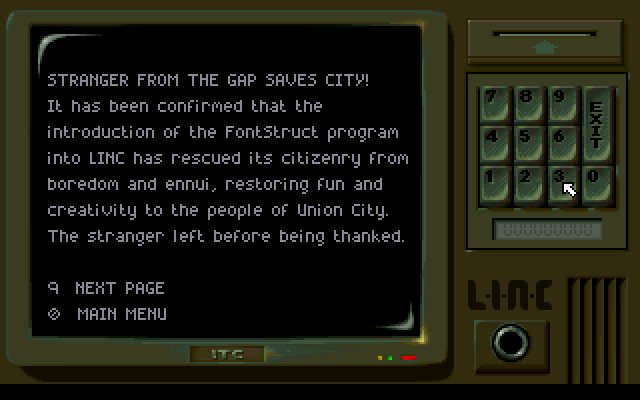
• Font used on the LINC terminal screens, inside LINC-Space, and for player-named saved games in the DOS version of Beneath A Steel Sky, (C) 1994 Revolution Software.
Oddities found within this font's design:
• The j is missing its tittle (corrected here)
• The stem of the k is 1 pixel shy of the full cap height (corrected here)
• There is an extra pixel width of space after the i, the lowercase L (l), the period (.), the colon (:), and the apostrophe ('), likely for increased legibility (retained here)
• The apostrophe (') is one pixel higher than the cap height (retained here)
There are also a few design differences between the glyphs for the player's saved games versus the font used for interacting with LINC (above):
• The saved game capital i (I) and number one (1) both have the same design, which is the same as the LINC lowercase L (l) above
• The saved game lowecase L (l) is actually 1 pixel taller than the cap height
• The saved game exclamation point (!) is 1 pixel shorter than the cap height
The original design oddities and the saved game variants are found in the More Latin section.